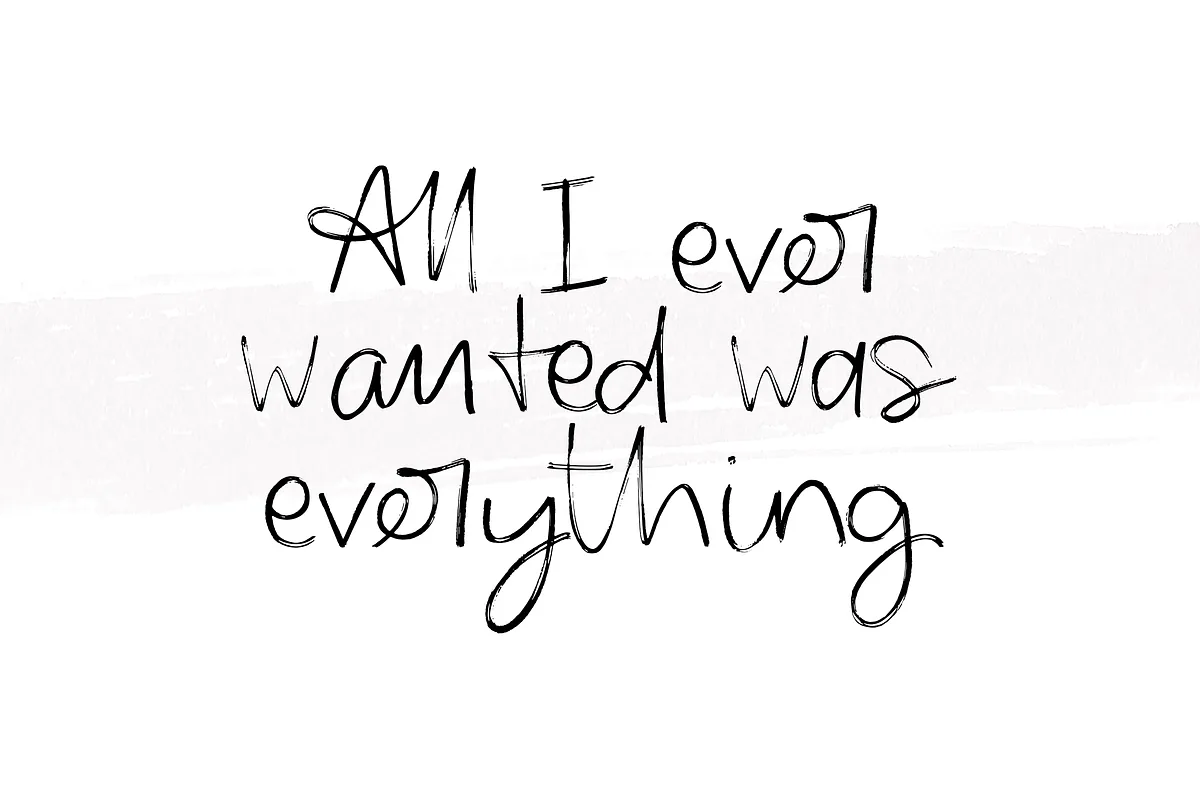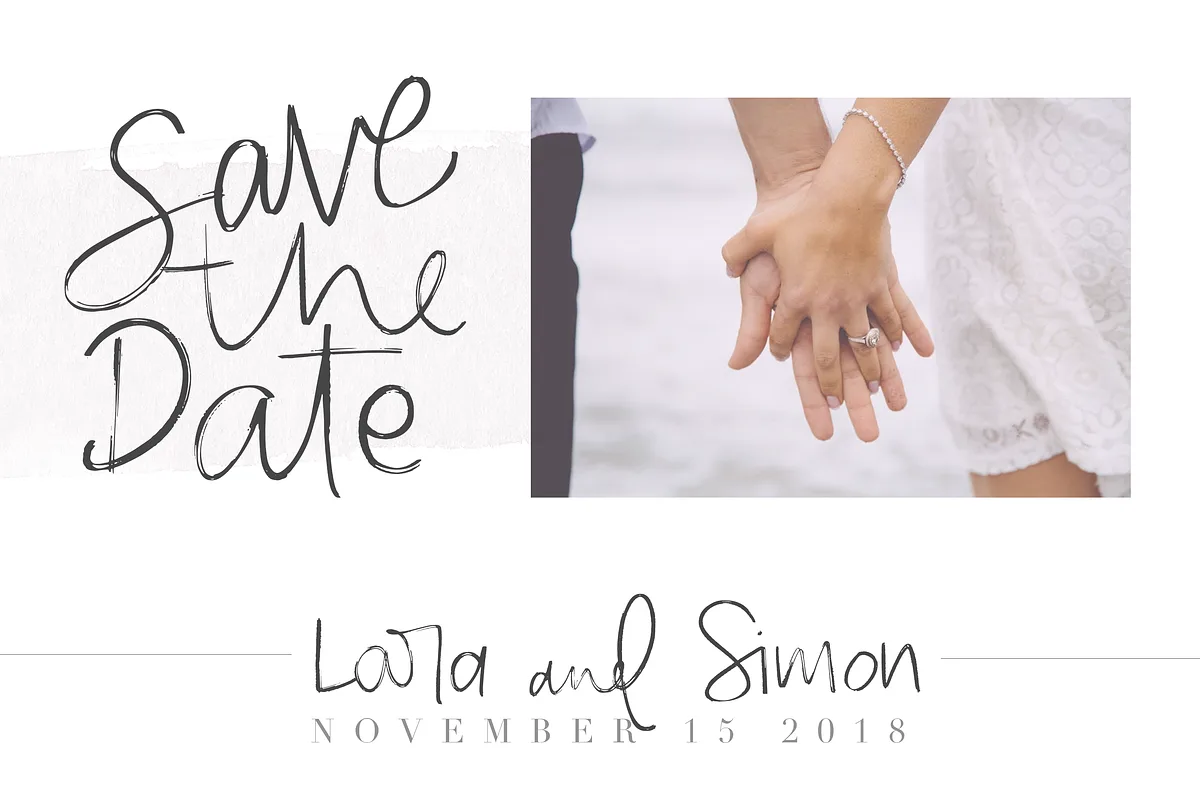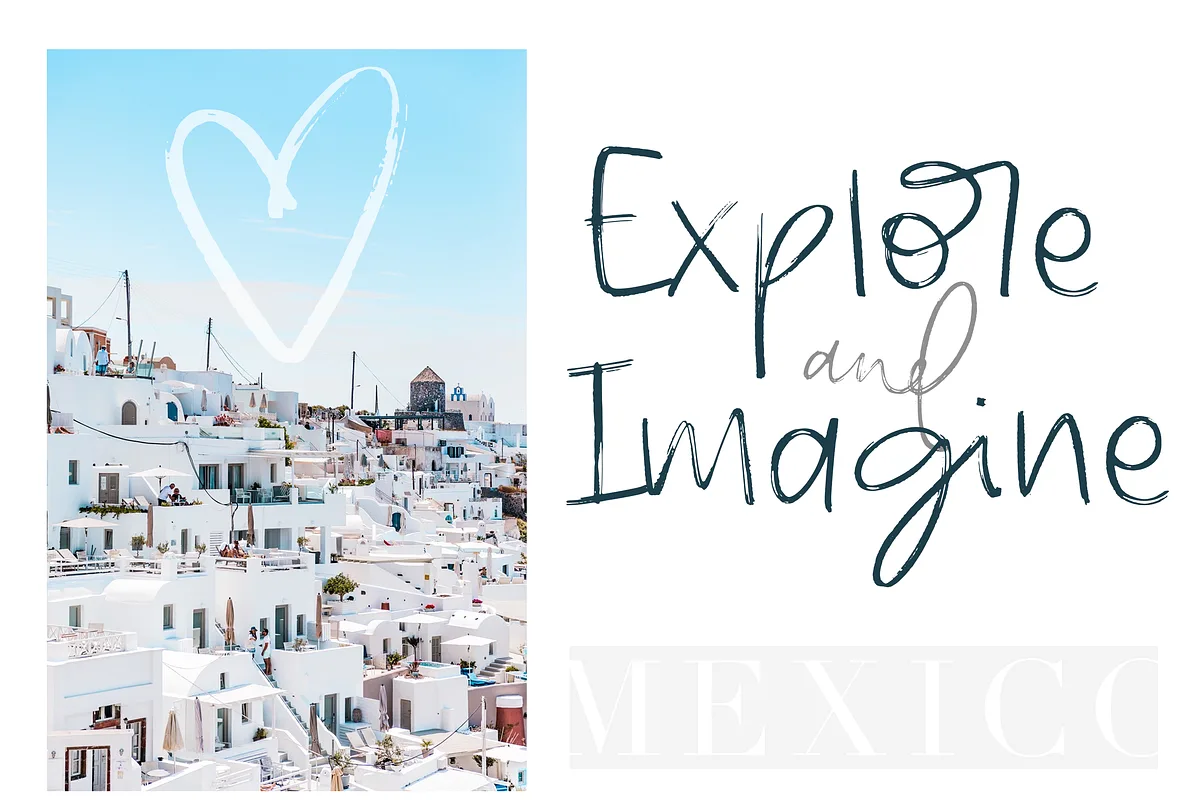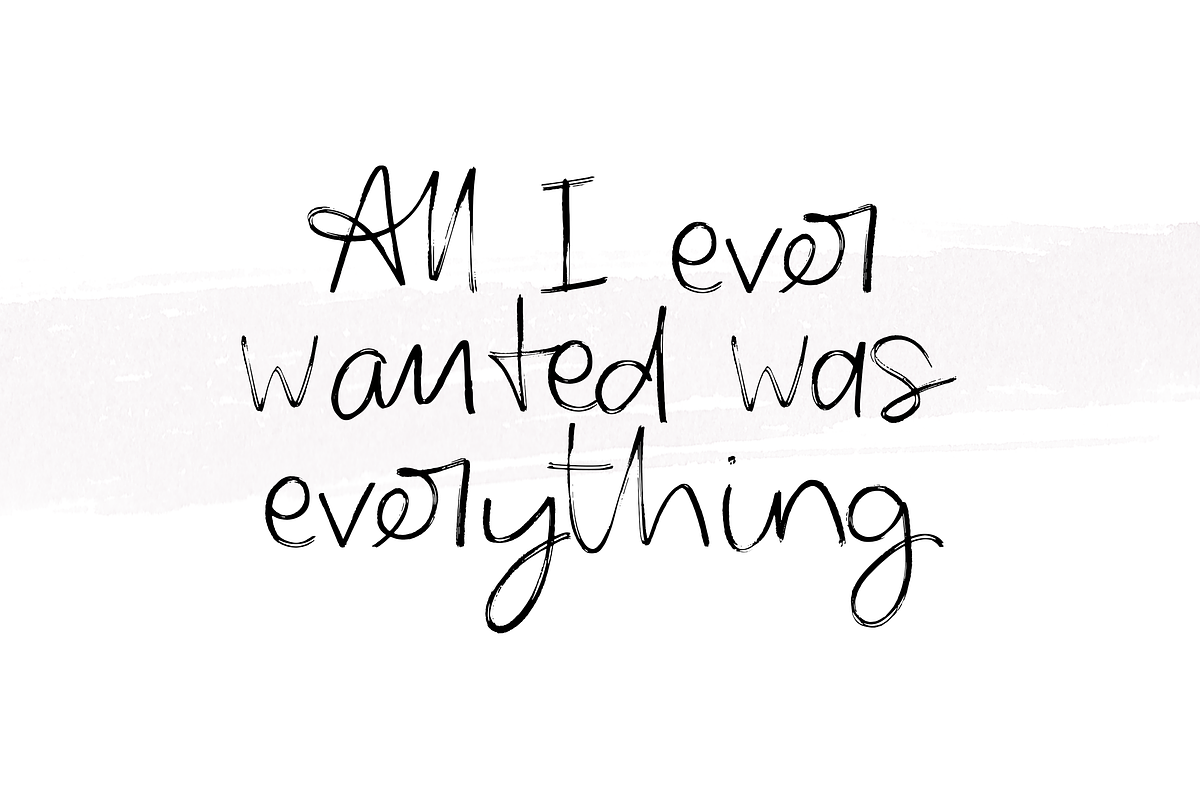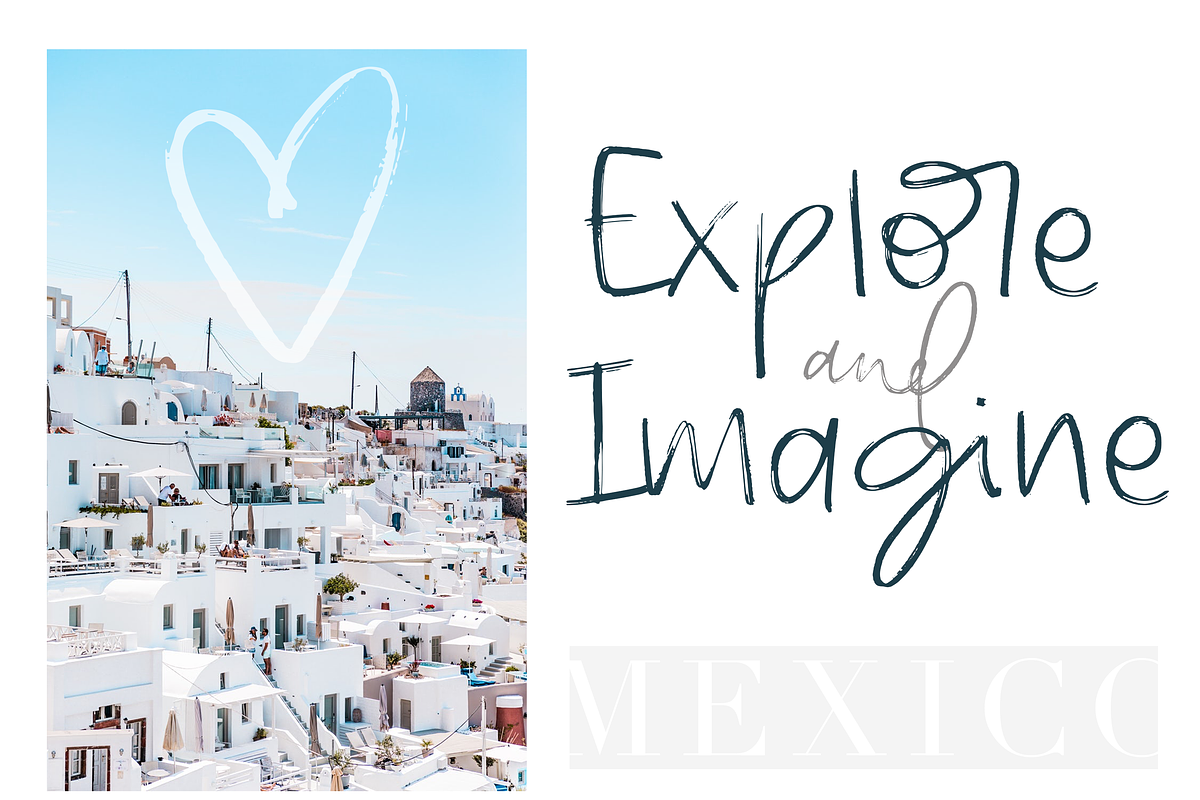
Karrilee is a chic brushed font with a handmade look and feel, as if written with a brush pen. It’s perfect for quotes and branding, and includes a ton of ligatures to give it an authentic, handwritten feel.
There are a ton of ligatures included – simply just turn on your standard and discretionary ligatures and you are ready to go! The letters will change as you type to produce an authentic, handwritten feel.
Karrilee – Handwritten Brush Font